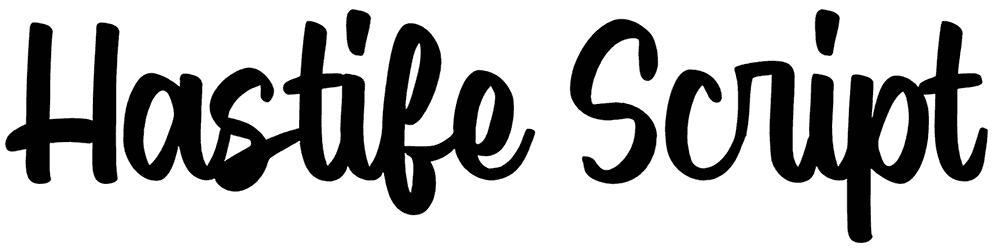
Hastife Script Font
A suitable font would look exactly like a healthy heart for your graphic content, so be conscious and pick up a glamorous script font like Hastife Script. Its tilted and curved characters carry a sense of sincerity, softness, and personalization. This handwritten font can take all of your creative ideas, including wood engraving, applications, headlines, or social media posts, to a higher level of quality.